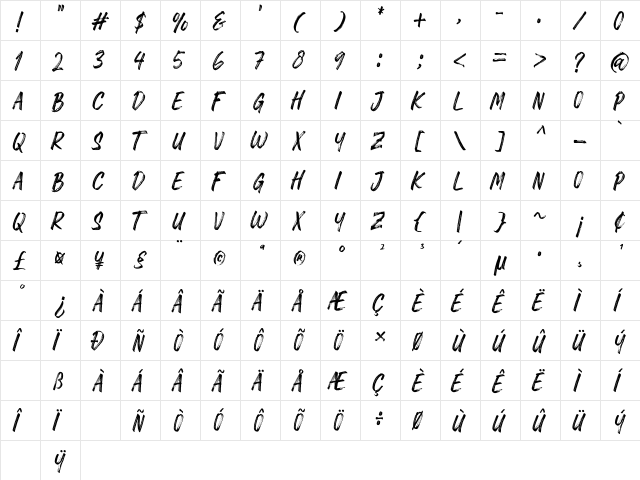
Rawk Brush Regular
| Foundry | Hendra Pratama |
| Designer | Hendra Pratama |
Design Context for Rawk Brush Typeface
Rawk Brush brings a calligraphic fluidity to the page — its connecting strokes and expressive curves give it an unmistakably human quality.